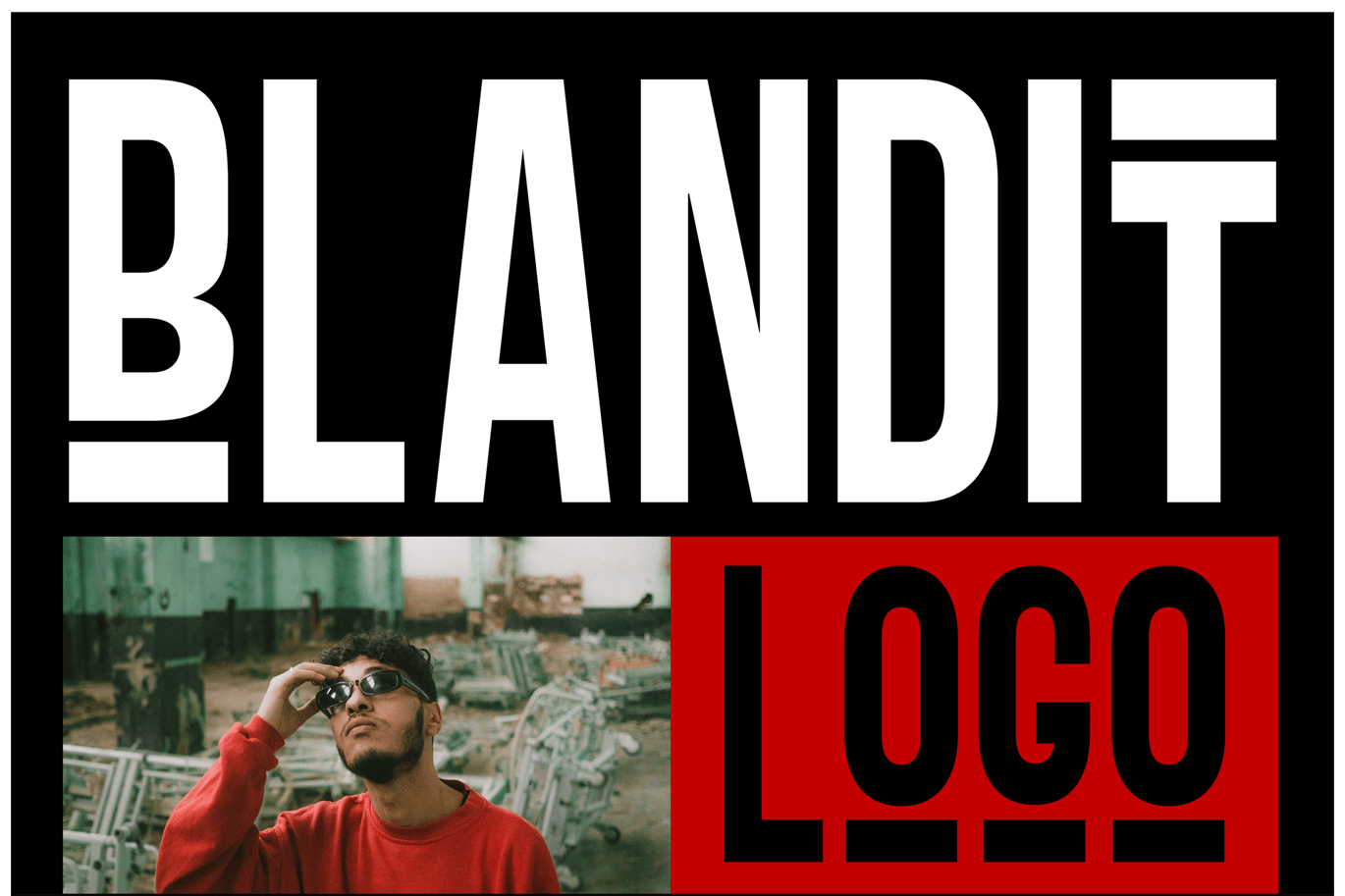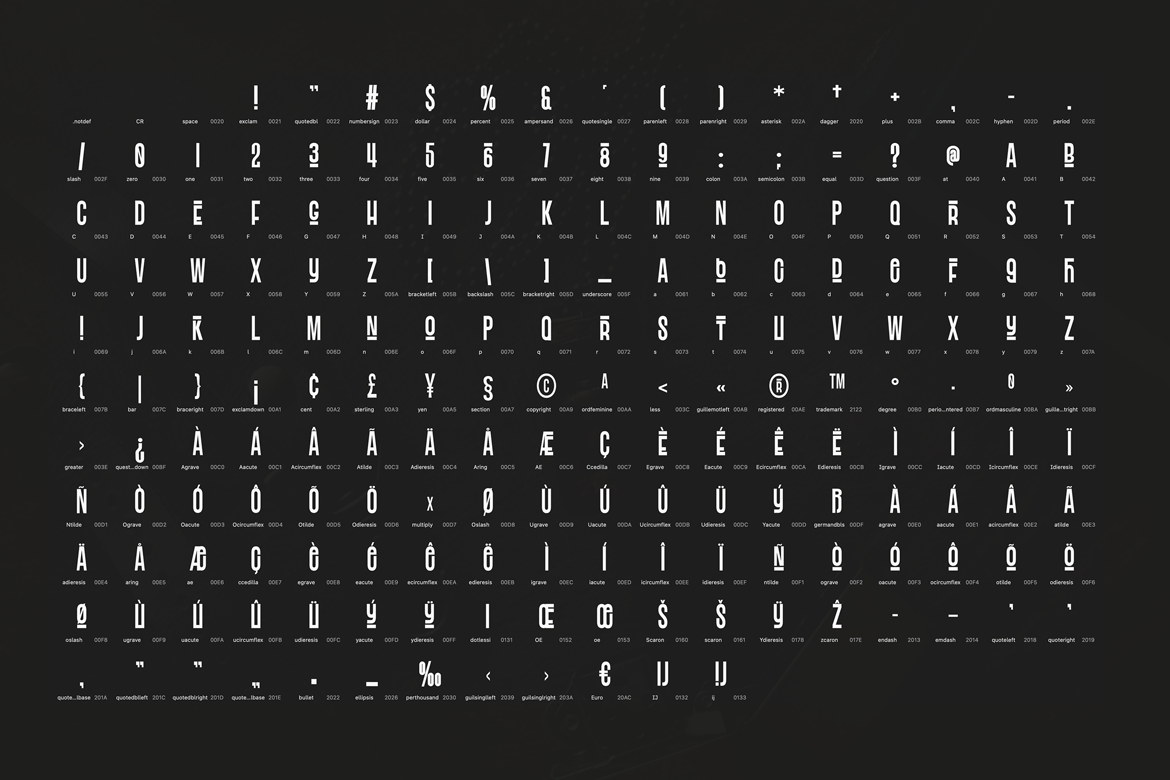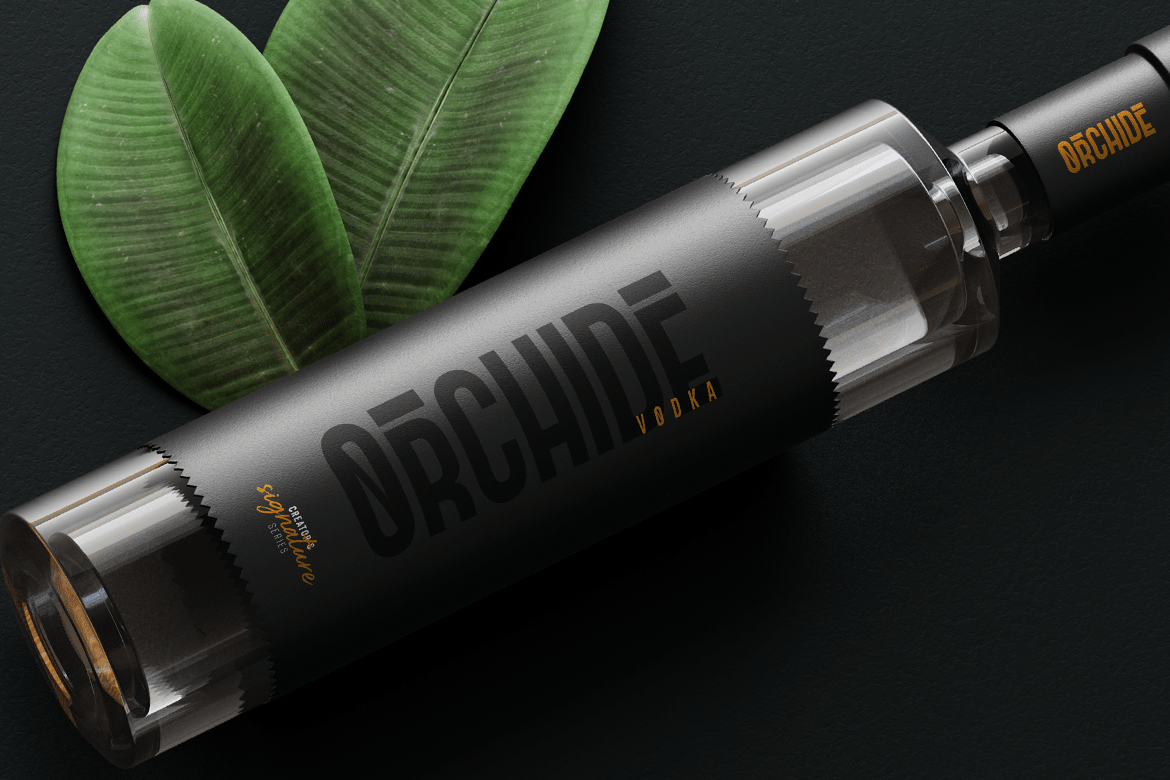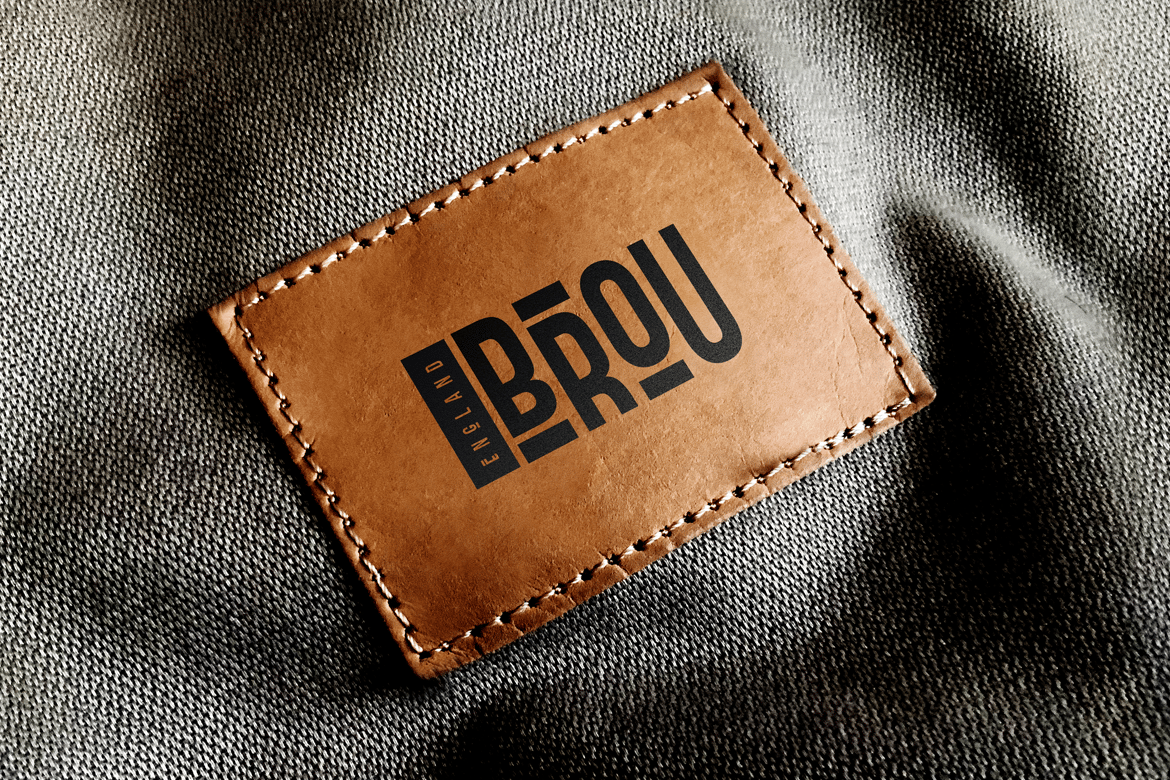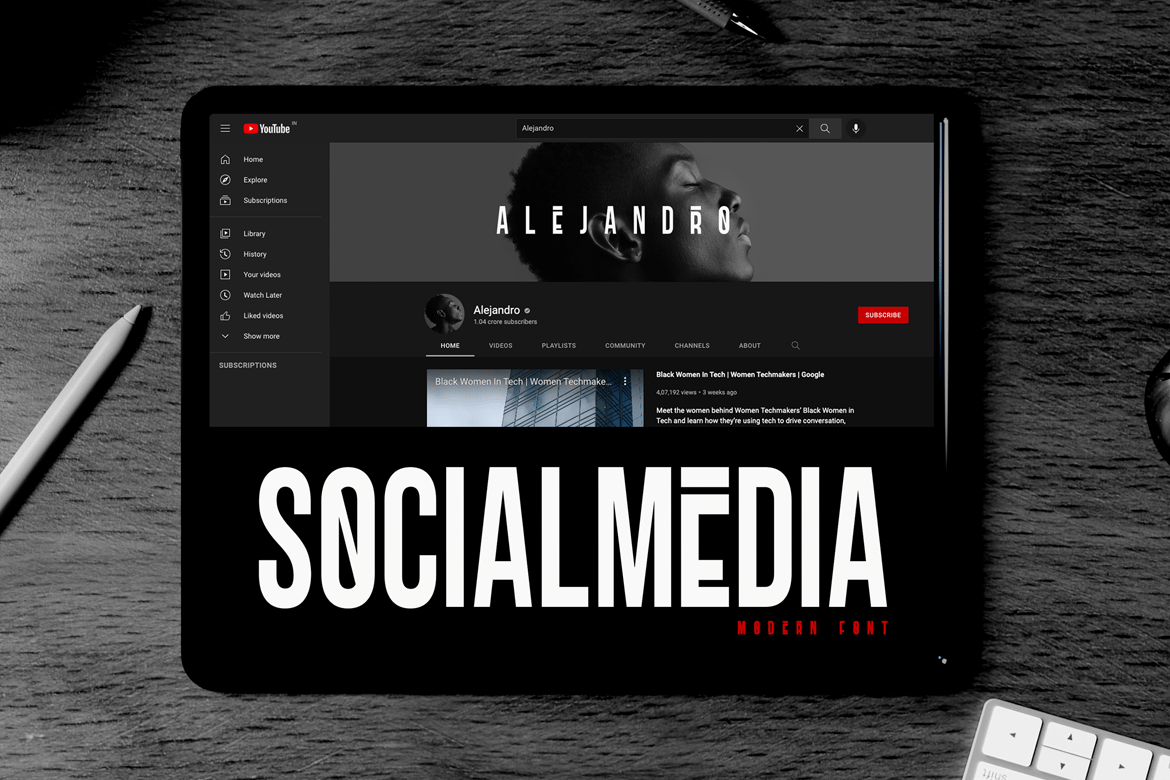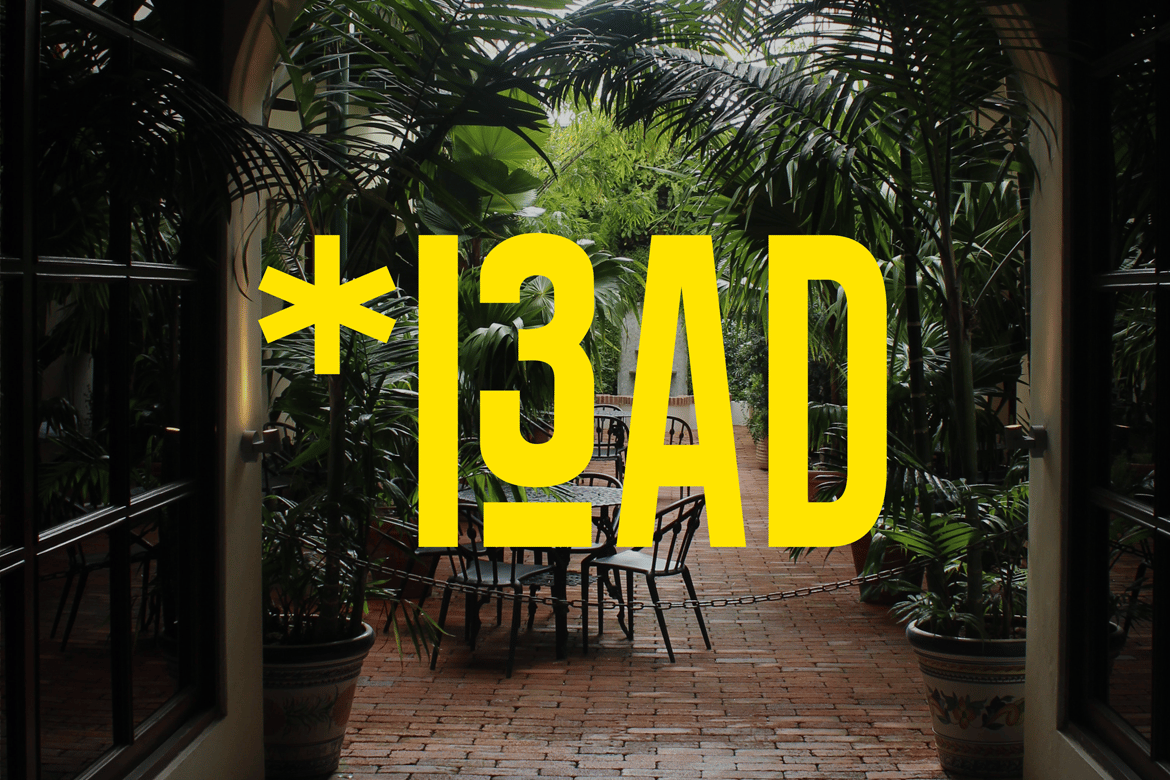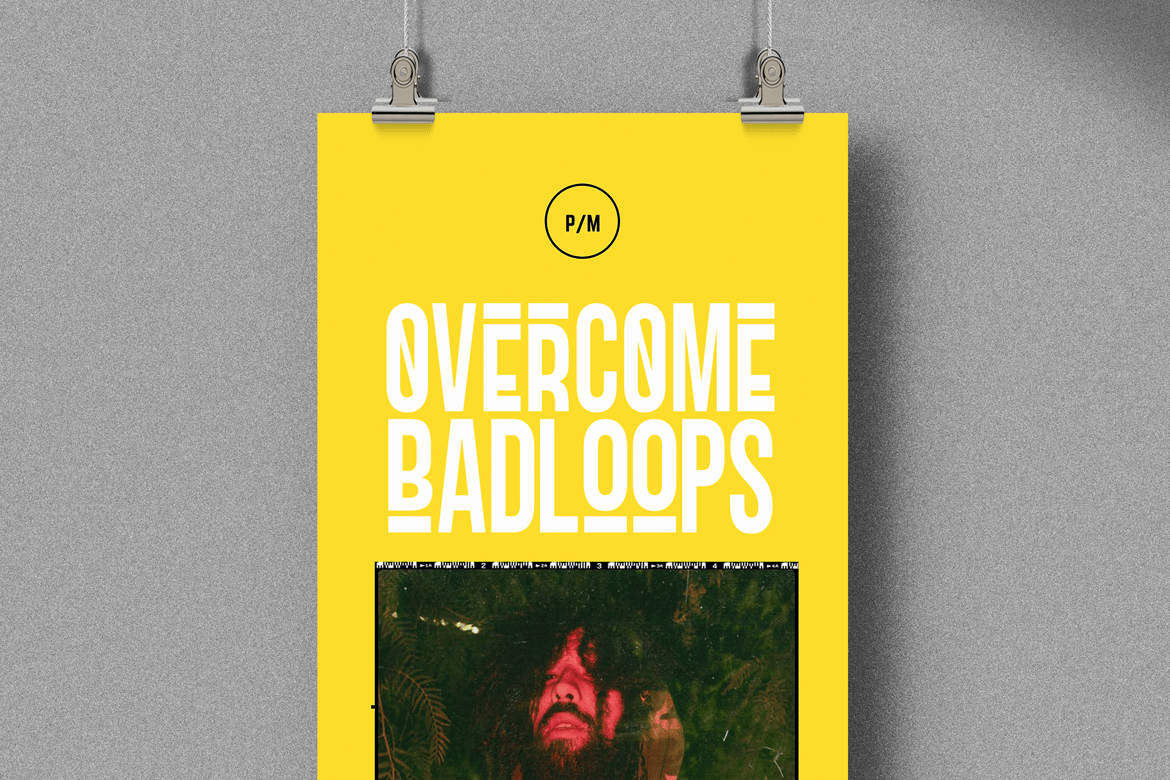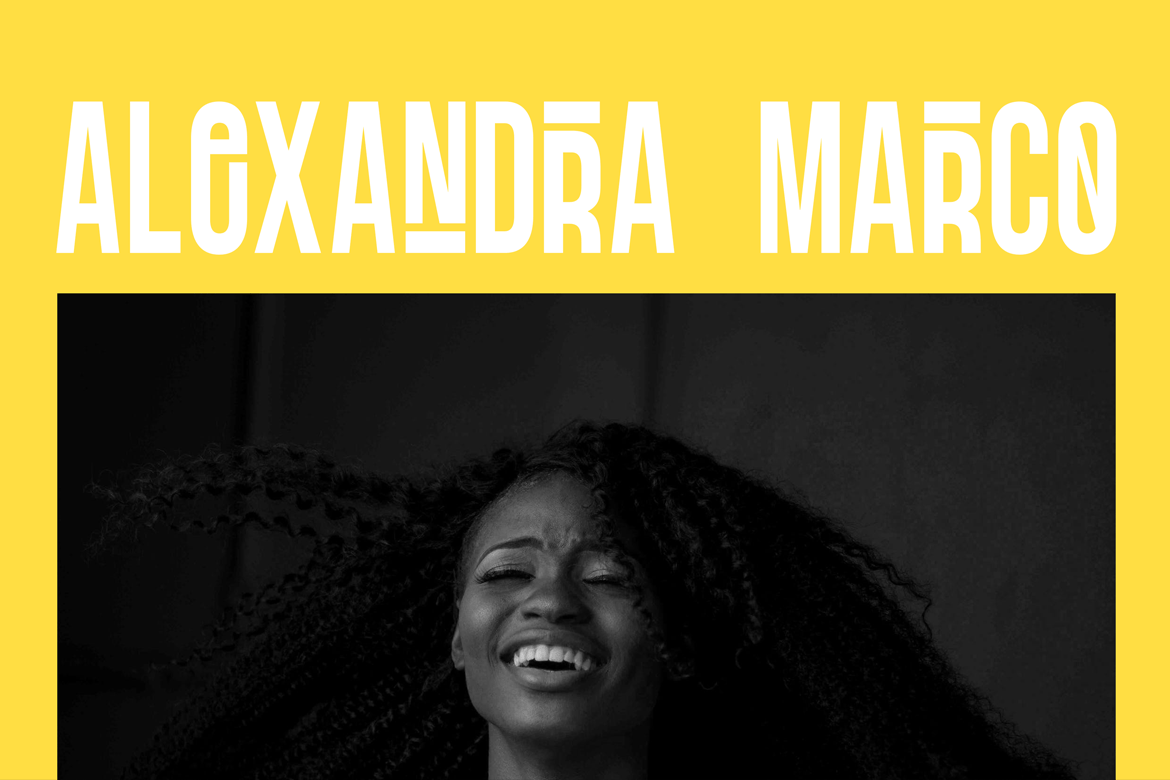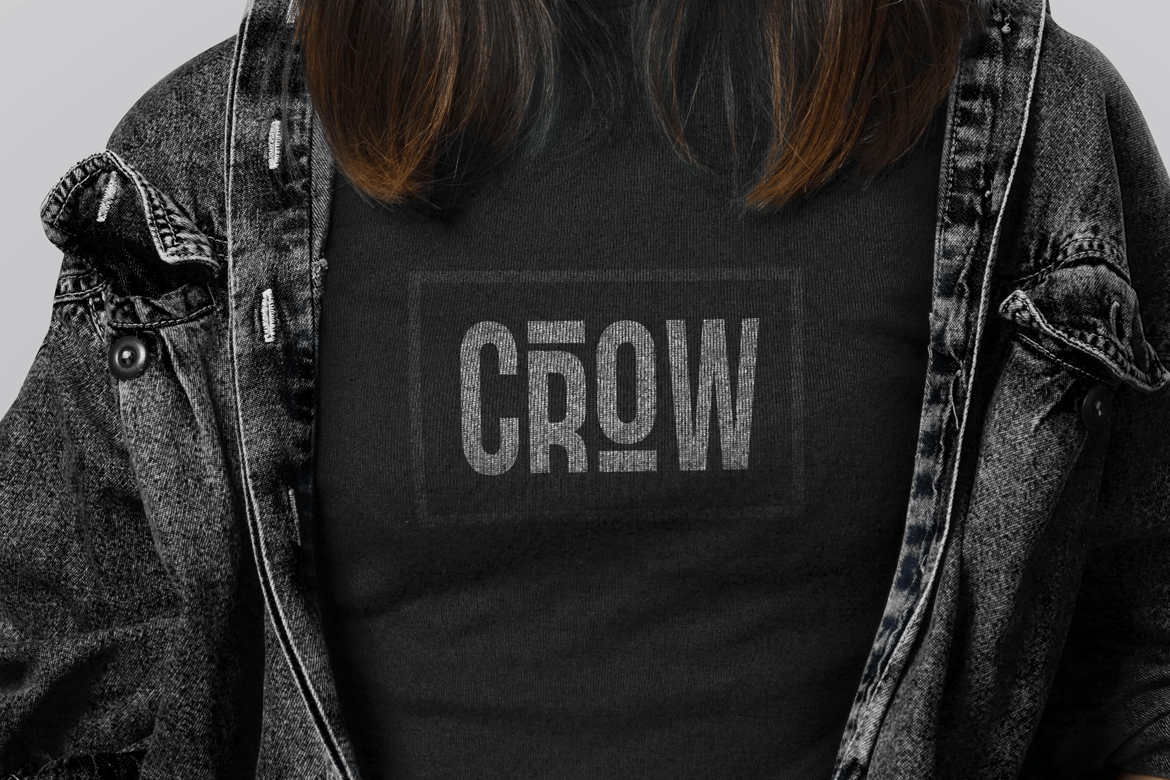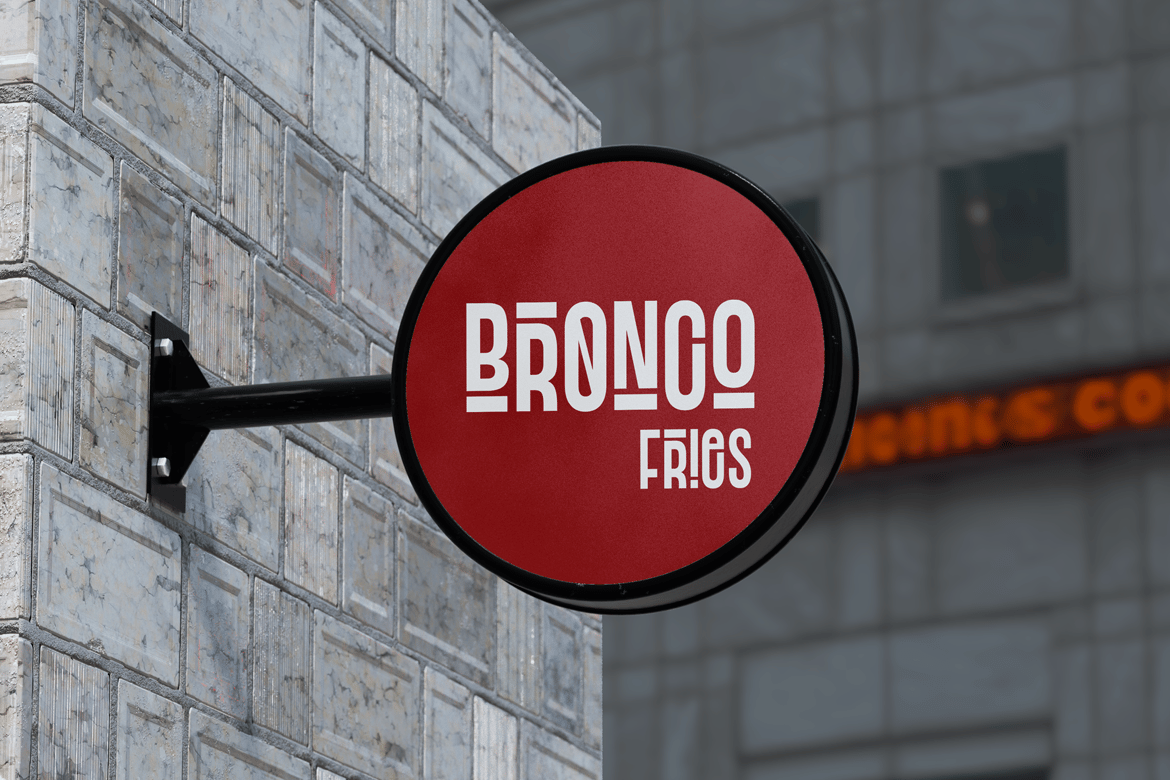
Blandit – Display & Logo Font family
Blandit – Modern Logo Font
Blandit is a Display font family for design of minimalistic logos. The fonts are very much suitable for creating wordmarks, titles, taglines,Film Posters, headlines, Block letter, Subheading, Logo Designs, Big Banners. Classic & Decorative Typography Web Designs.